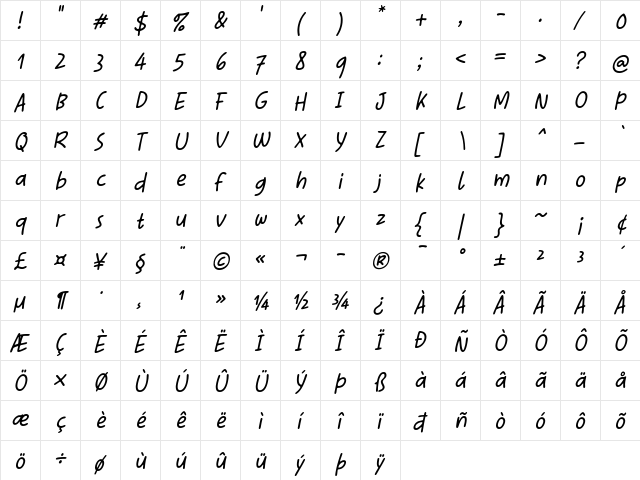
The Simple One Italic
| Foundry | 7NTypes |
| Designer | Situjuh Nazara |
Design Context for The Simple One Typeface
The Simple One is a composed and adaptable typeface that performs quietly and consistently across a wide range of design contexts. The slanted form adds forward momentum and visual energy.
Pro Tip: Use The Simple One for emphasis, pull quotes, and subheadings where its slanted energy can add rhythm to the layout.